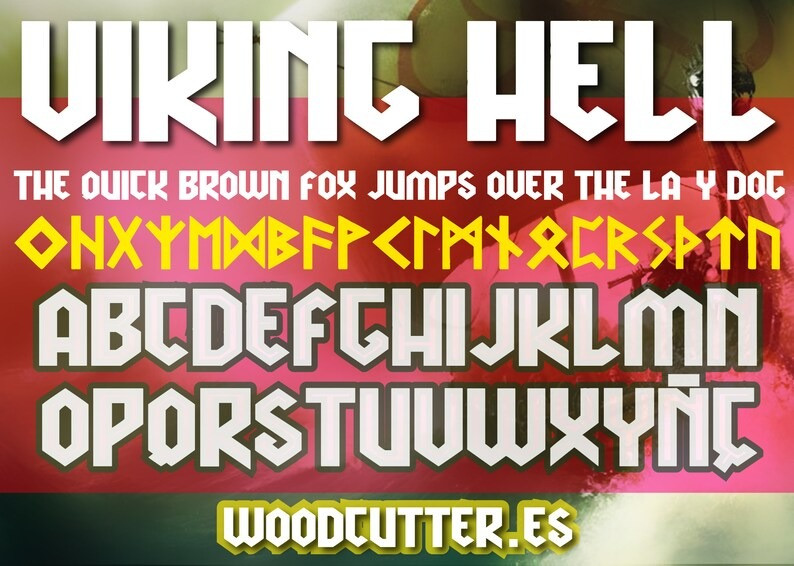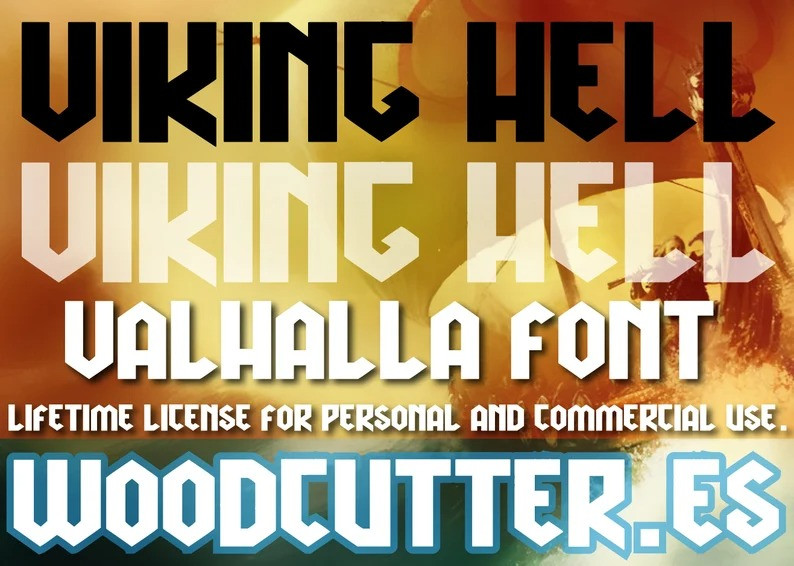
Viking Hell Font
Viking Hell Font is a bold and authentic display font. The font is suitable for any branding project like logo, t-shirt printing, esports, and many more. It will look outstanding in a wide range of contexts.